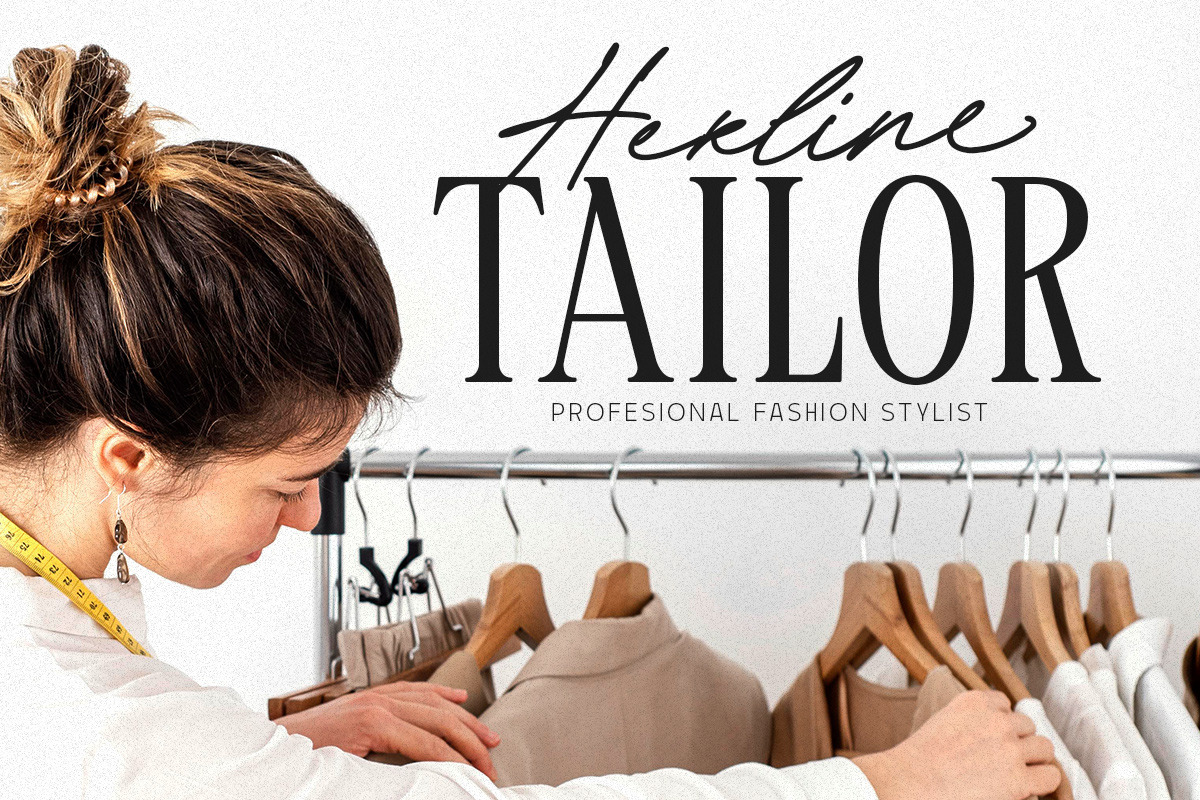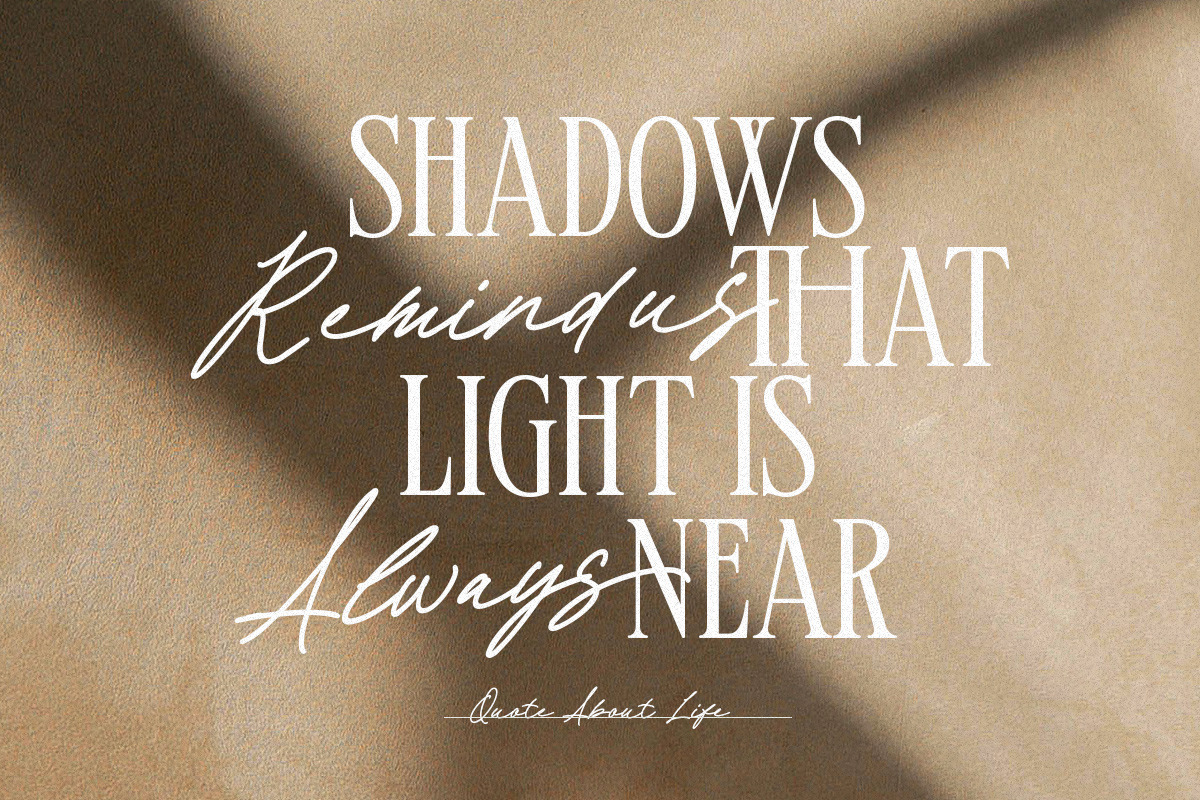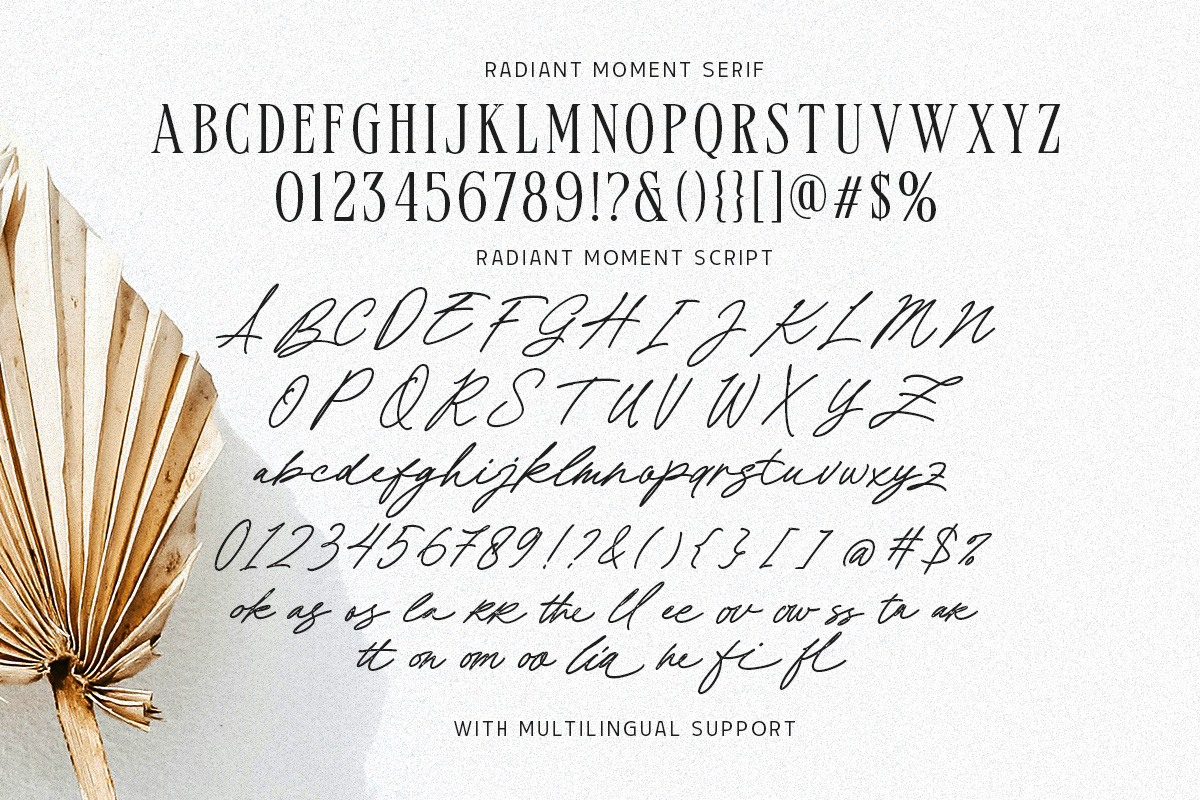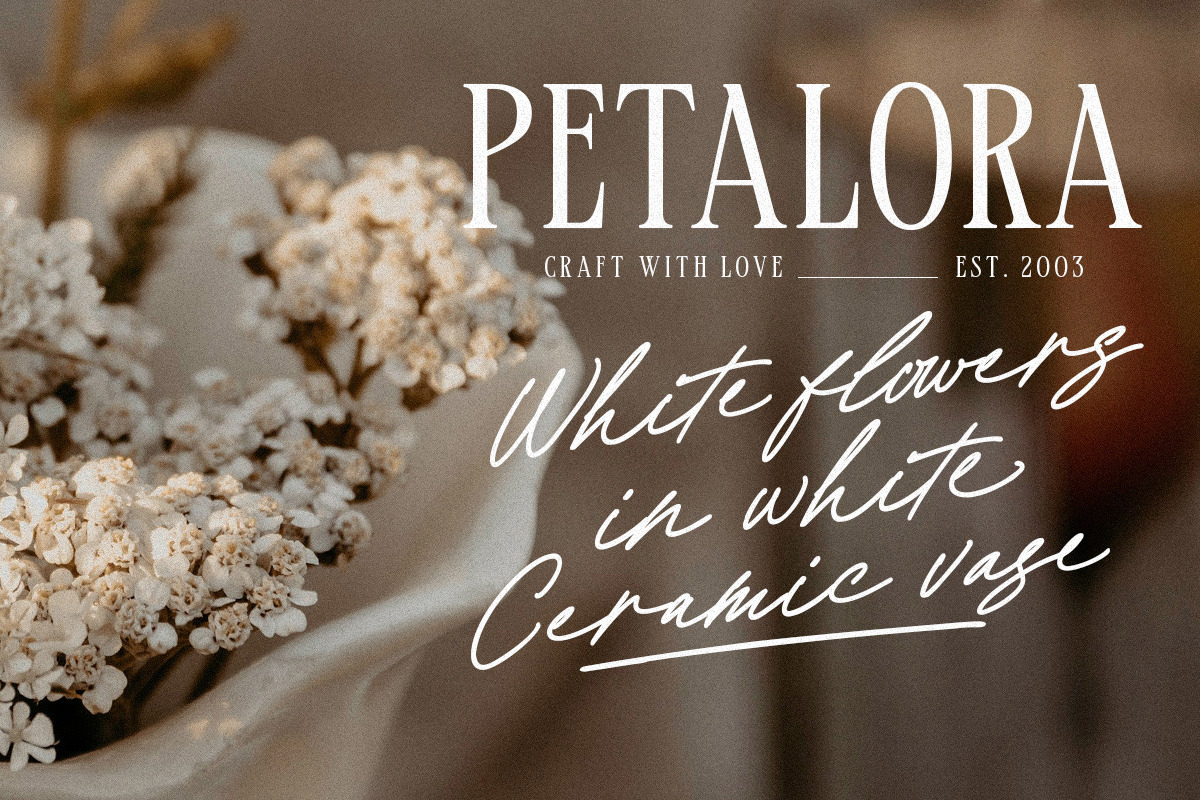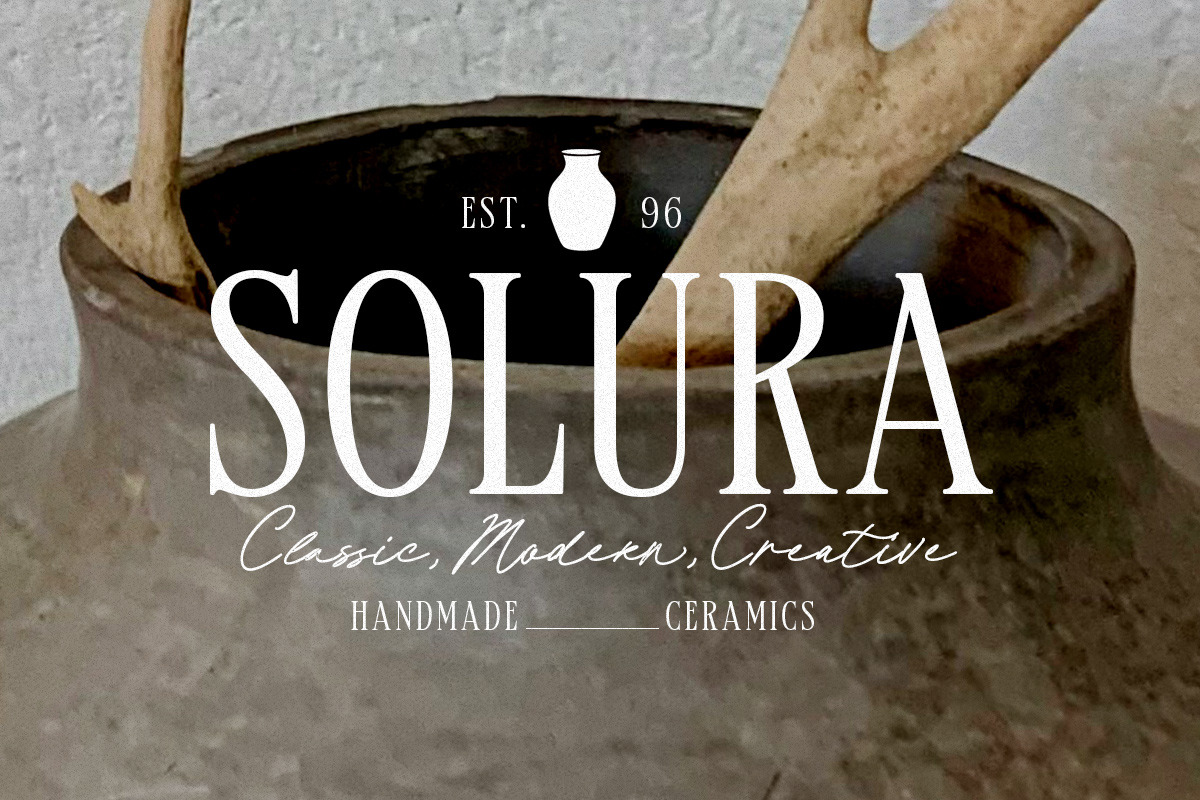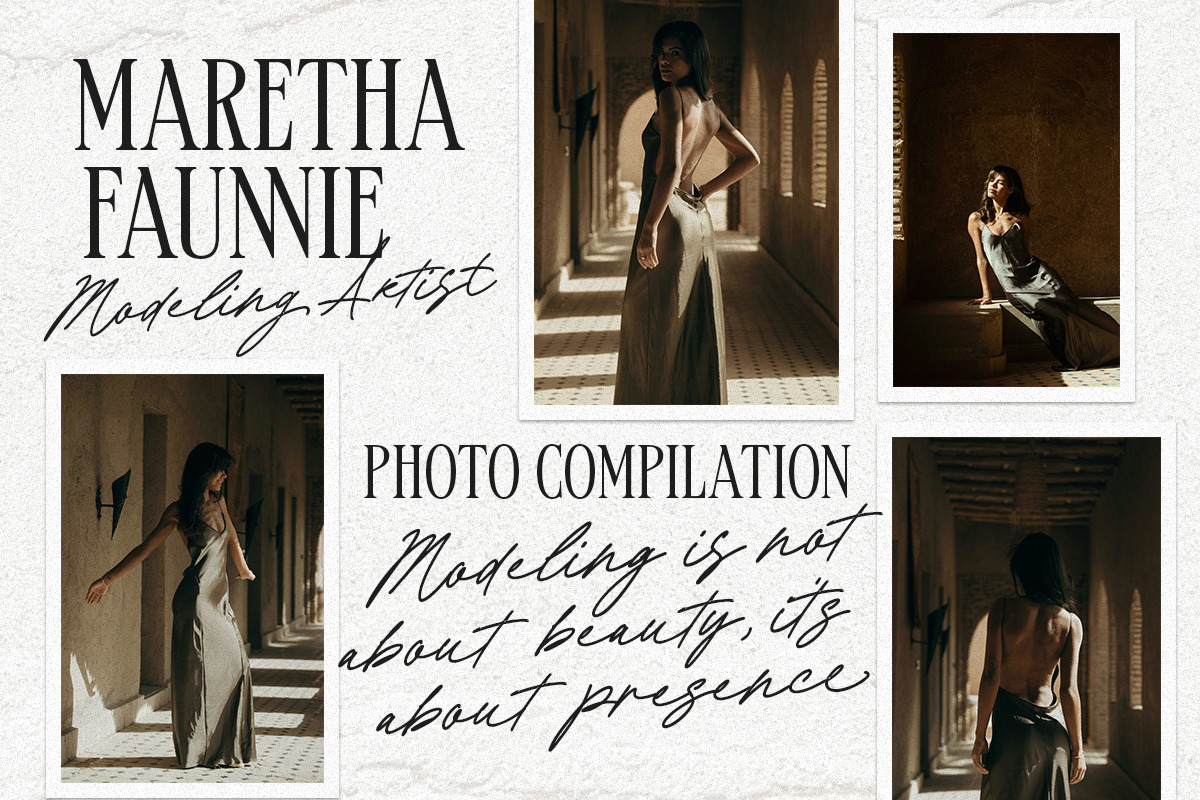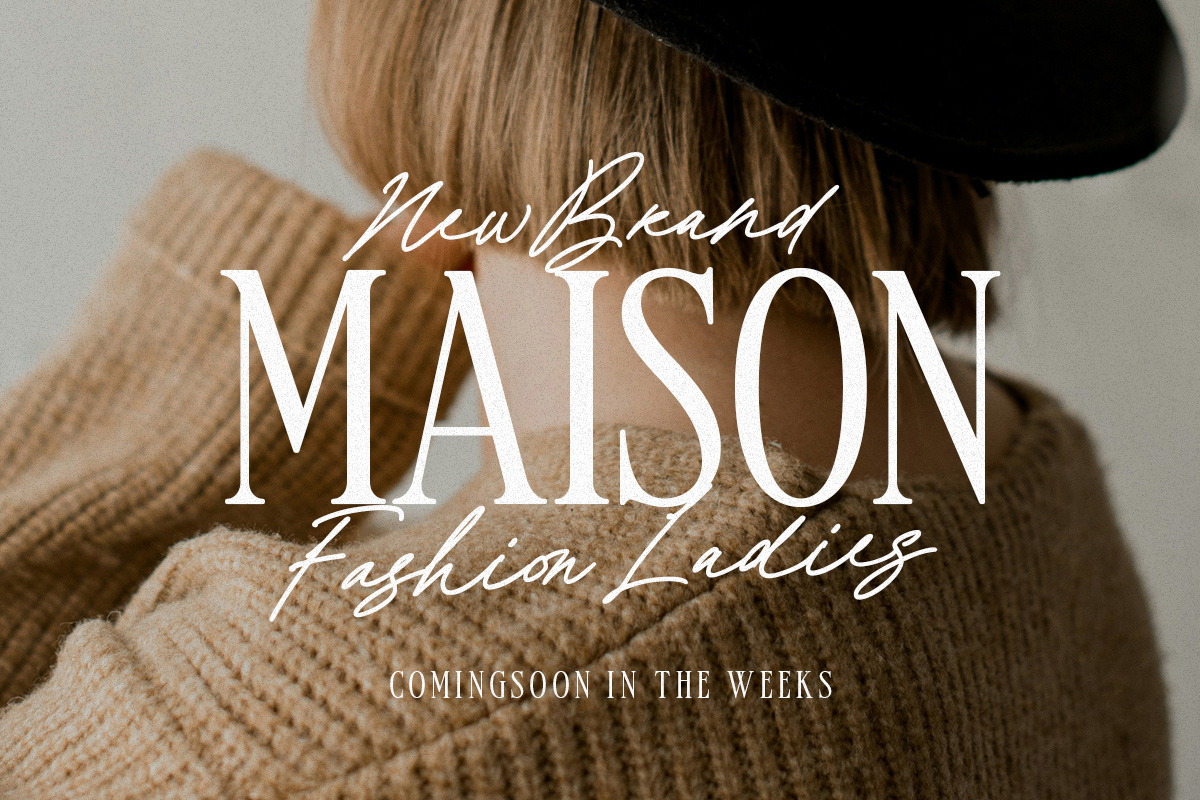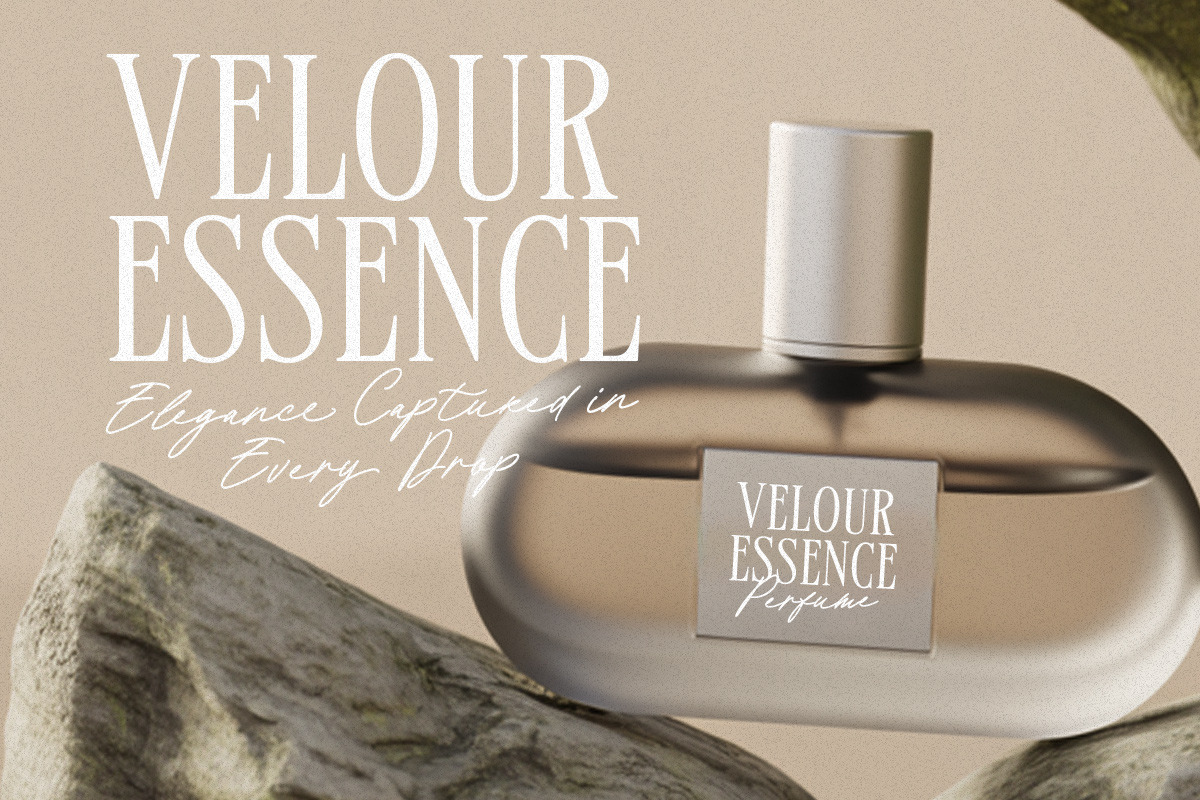
MCO - Radiant Moment
Discover Radiant Moment, a stunning font duo that perfectly pairs a clean, modern serif with an elegant, free-flowing script. The serif provides a sophisticated foundation, while the script adds a warm, personal touch with its authentic handwritten strokes.
Together, they create a versatile and timeless combination ideal for branding, wedding invitations, logos, and editorial design. Elevate your projects with the unique charm of Radiant Moment.
Two Fonts in One : A clean & modern Serif + an elegant & warm Script.
Perfect For : High-end branding, wedding invitations, logos, packaging, and editorial layouts.
Features : Serif with Ligatures Set, OpenType Features, and Multilingual Support. The script includes beautiful ligatures and stylistic alternates for a truly custom feel.
The Result: A timeless and professional look that elevates any design.